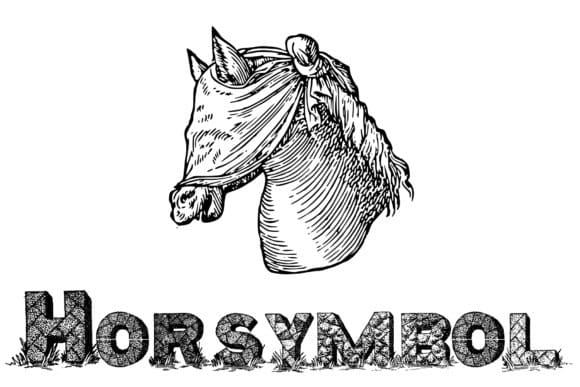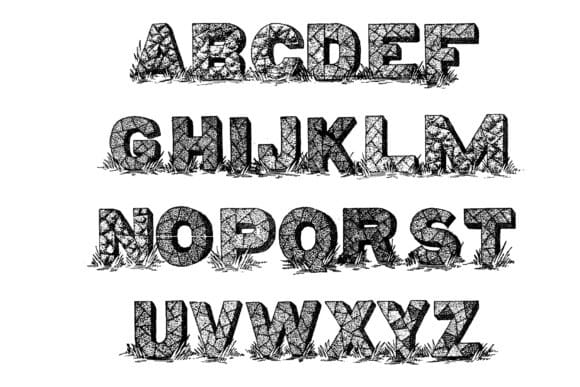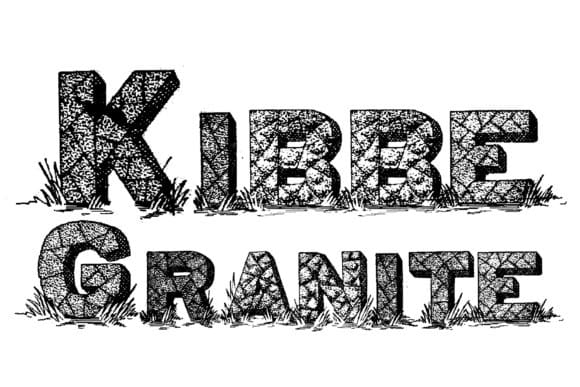
Kibbe Granite Font
Kibbe Granite is an incredibly unique display font. Masterfully designed to become a true favorite, this font has the potential to bring each of your creative ideas to the highest level!
An alphabet in granite looking. Digitzed from the work of W H Kibbe (1900), which shows all caps decorative alphabets. Original design drew between 1885 and 1890.